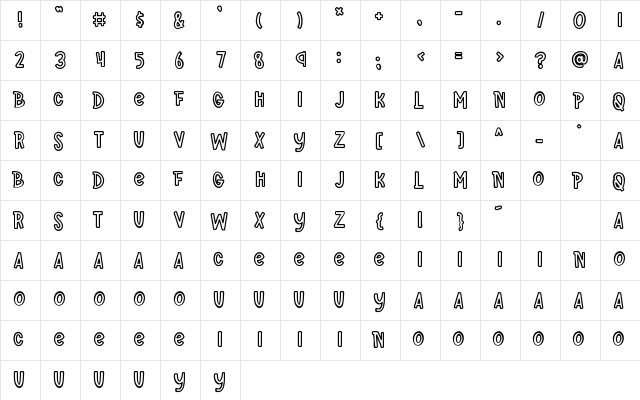
FBSuperFun Regular
Design Context for FBSuperFun Typeface
FBSuperFun has an approachable, lighthearted character — its loose, expressive forms are well-suited to children's content, casual branding, and fun-first design.
Font Pairing: Pairs well with a rounded or humanist sans for body copy, maintaining the friendly tone without relying on FBSuperFun to carry extended reading.
Pro Tip: Use FBSuperFun at larger display sizes where its expressive character can land. Pair with a clean, simple sans for body copy to maintain readability.